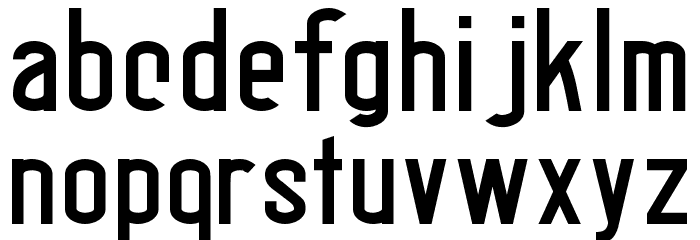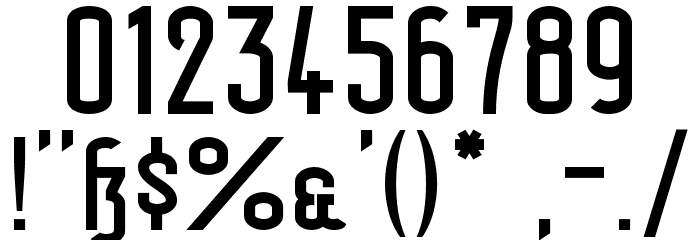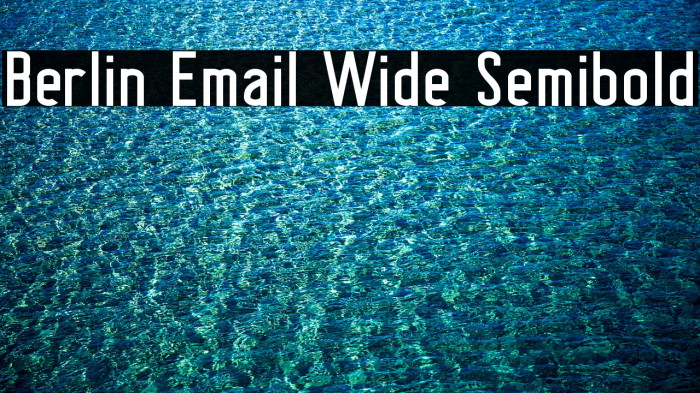
Berlin Email Wide Semibold Font
This font features a bold and wide sans-serif style with a modern and geometric appearance. The uppercase letters are tall and slightly condensed, giving a strong and assertive look. The lowercase letters maintain a consistent height, providing a balanced and harmonious feel. The numerals are clear and legible, with a uniform width that complements the overall design. Special characters are distinct and well-integrated, ensuring versatility in various applications. The font's clean lines and minimalistic approach make it suitable for contemporary design projects.
A bold, wide sans-serif font with a modern, geometric style.
- Proposed Projects: Ideal for branding, advertising, headlines, and digital media where a strong, modern presence is desired.
- Width: Expanded
- Use Case: Headlines, Logos, Branding